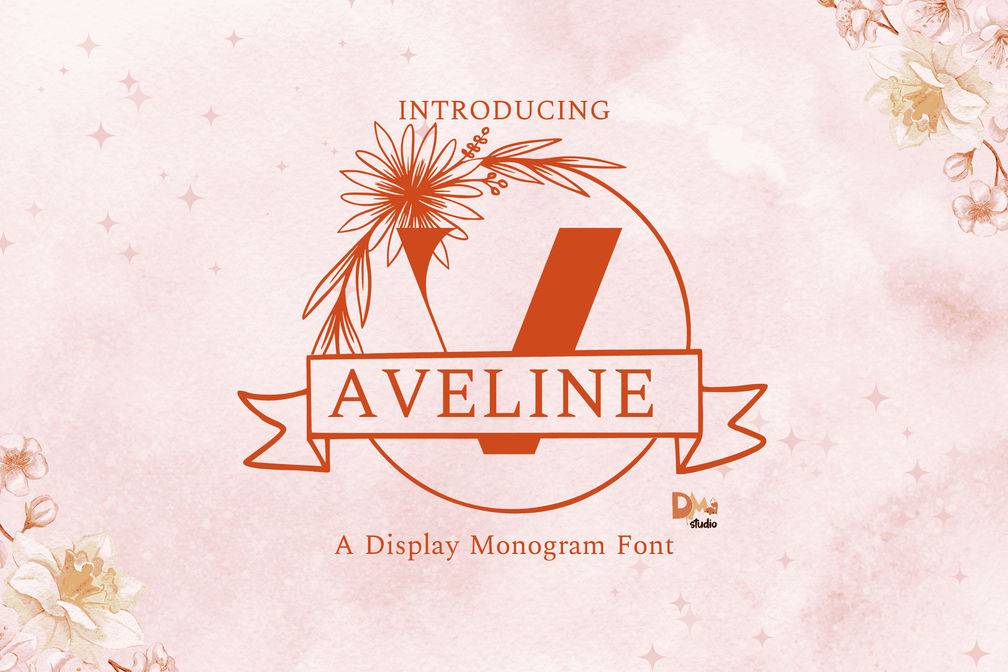
Aveline Line Monogram
Aveline Line Monogram – Elegant & Minimalist Monogram Font
Aveline Line Monogram is a beautifully crafted monogram font featuring delicate linework for a refined and sophisticated look. This font is perfect for luxury branding, wedding invitations, personalized stationery, boutique packaging, and decorative initials. With its minimalist yet elegant design, Aveline Line Monogram adds a timeless and stylish touch to any project.
• Delicate Linear Monogram Style: Designed with fine, elegant lines for a sophisticated aesthetic.
• Perfect for Luxury & Elegant Projects: Ideal for weddings, branding, invitations, and personalized gifts.
• Minimalist & Classic Aesthetic: A combination of modern simplicity and artistic refinement.